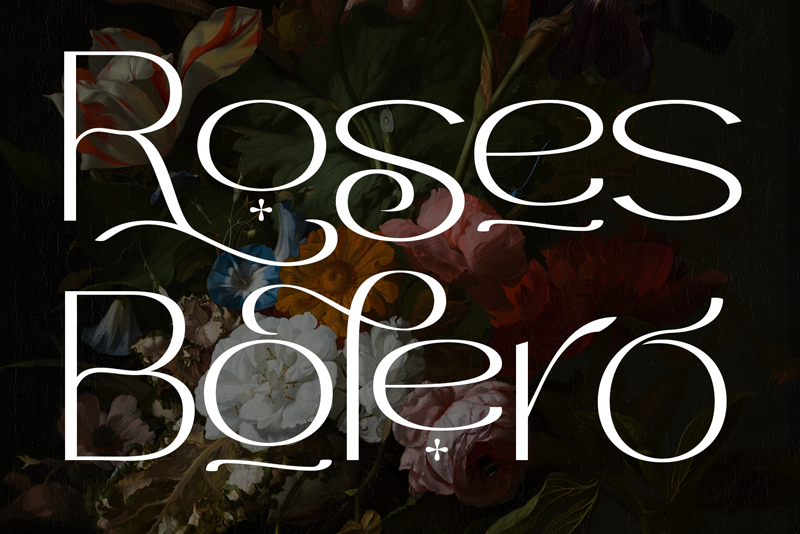
Roses Bolero is a free elegant sans serif font created by AuthenType. This font features a classic and elegant style, perfect for poster design, magazines, beauty branding with a flower-shaped asterisk glyph suitable for your elegant design concepts. This free font is a demo version. Click this link to find the full version and access all alternates, ligatures and special characters. https://authentype.com/shop/roses-bolero-elegant-sans-serif/ |